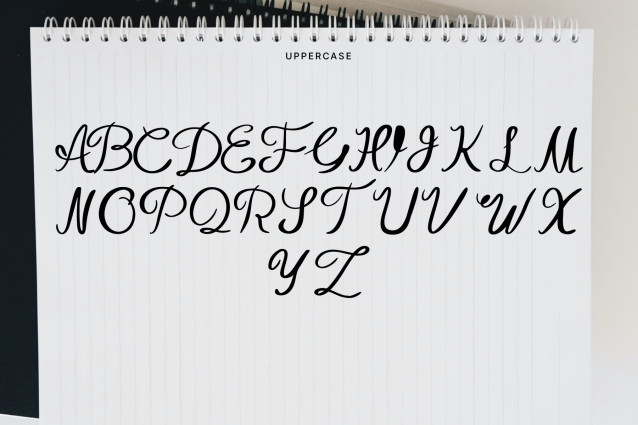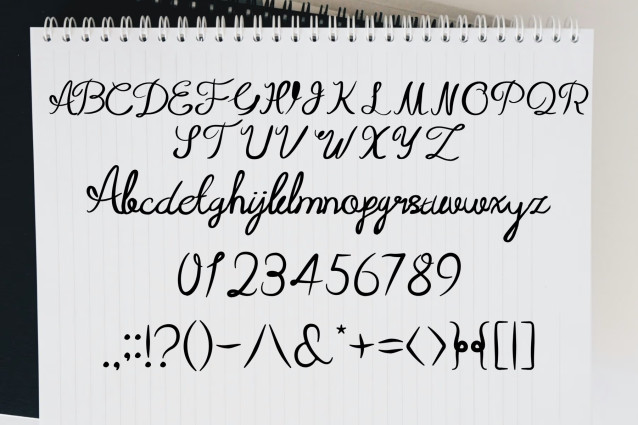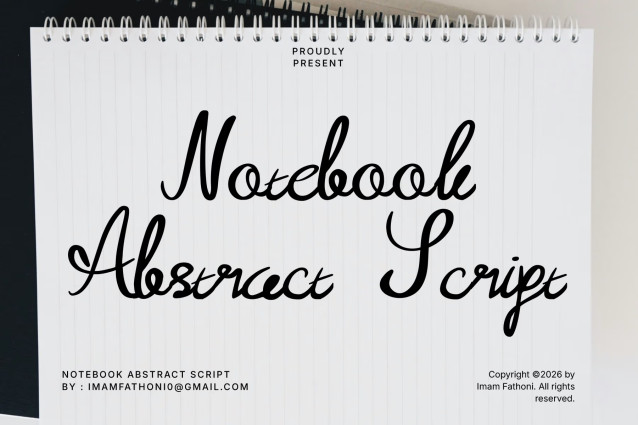
Bring raw artistic energy, personal handwritten flair, and expressive calligraphic movement to your typography with Notebook Abstract Script! This dynamic handwritten script font features bold, continuous ink strokes, looped tall ascenders, and a distinct notebook-style penmanship flow. Its authentic handwritten rhythm gives text a creative, personal-touch aesthetic that feels uniquely human.